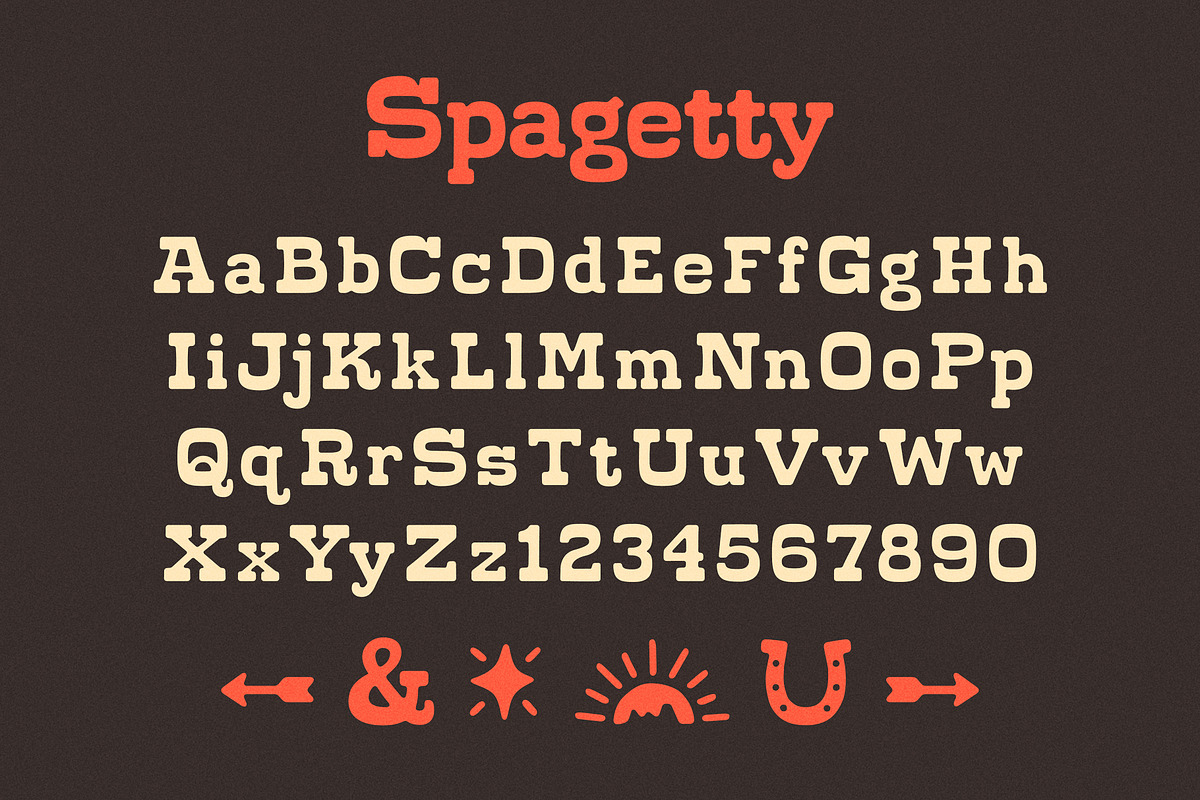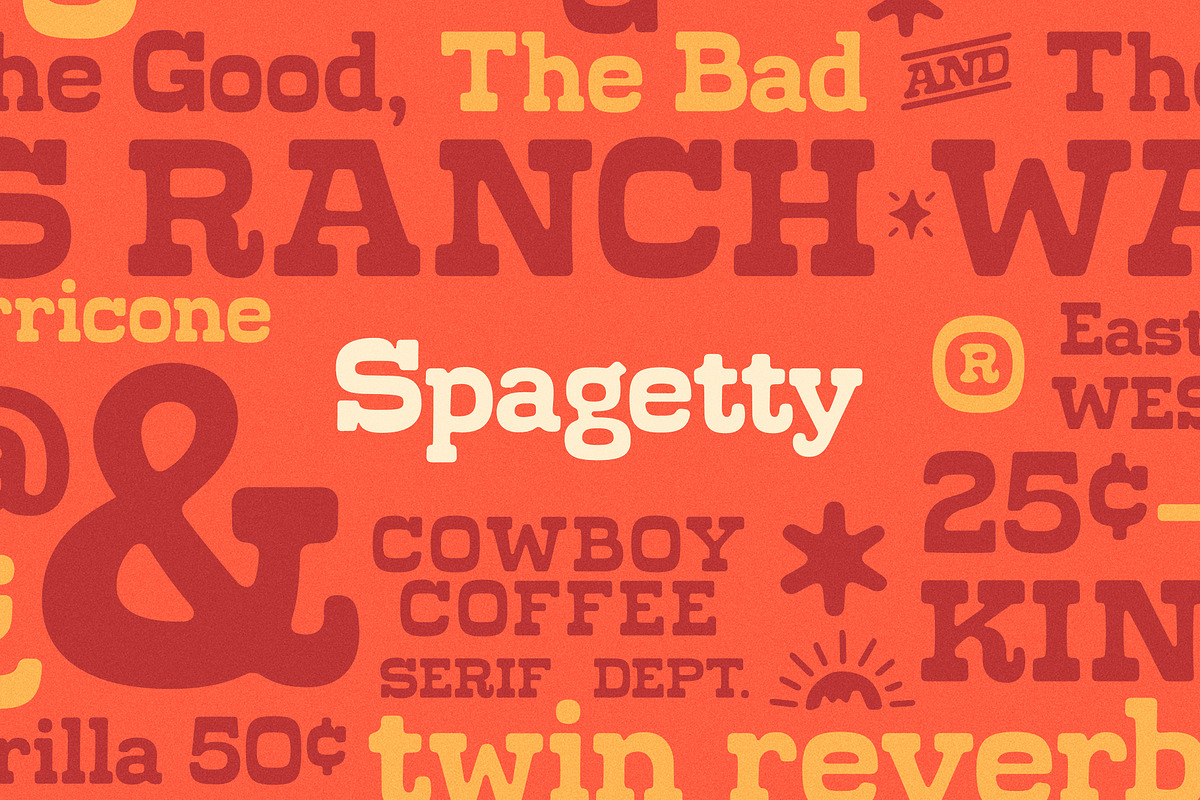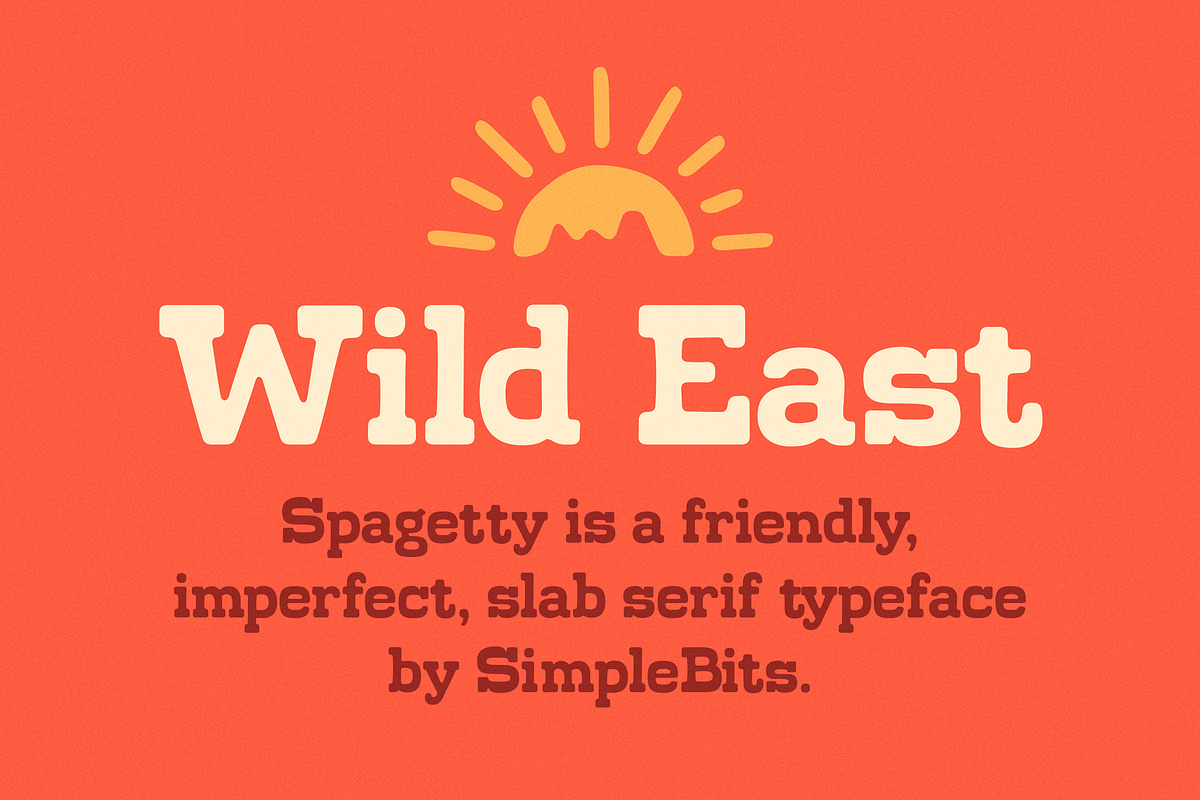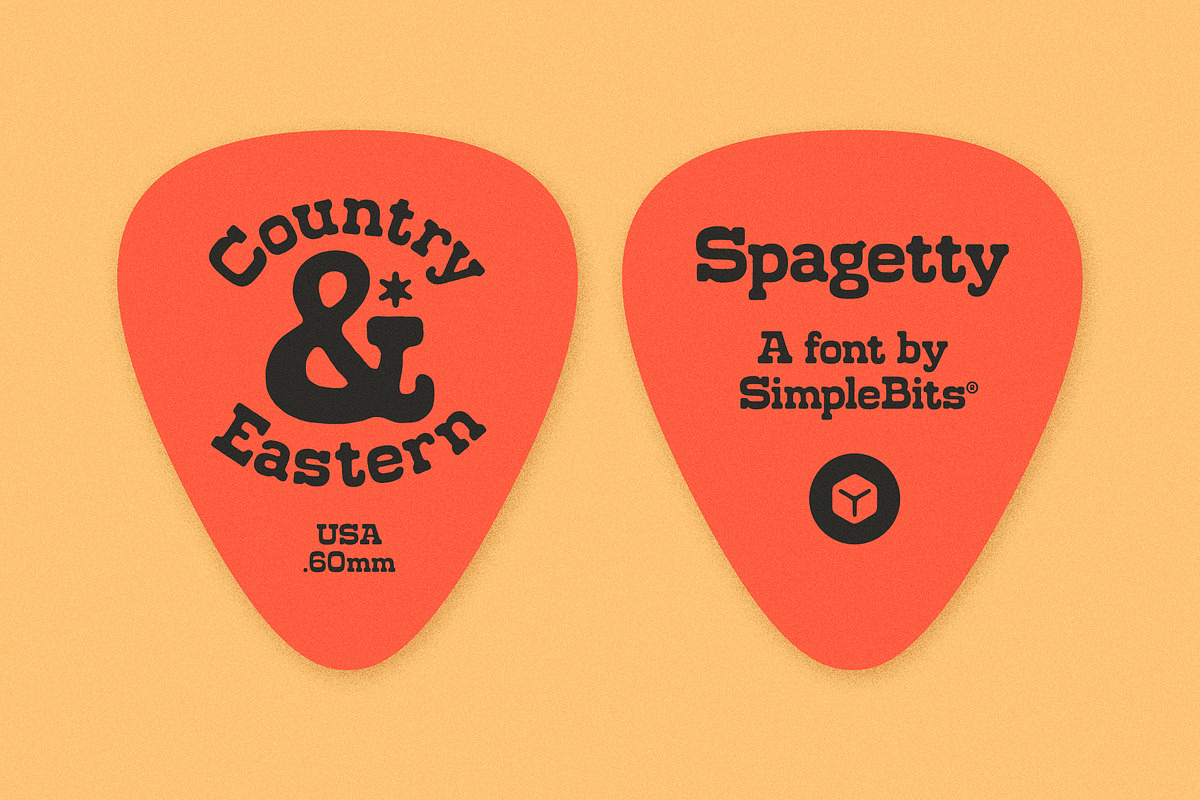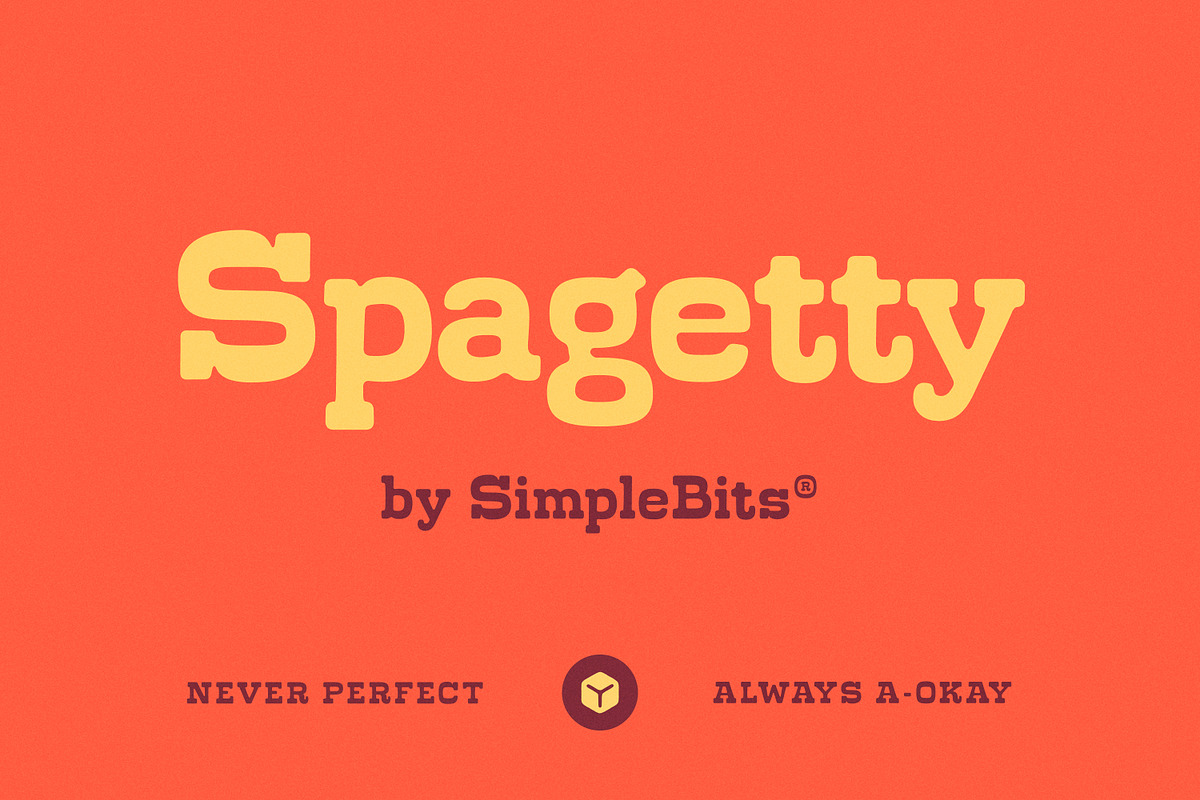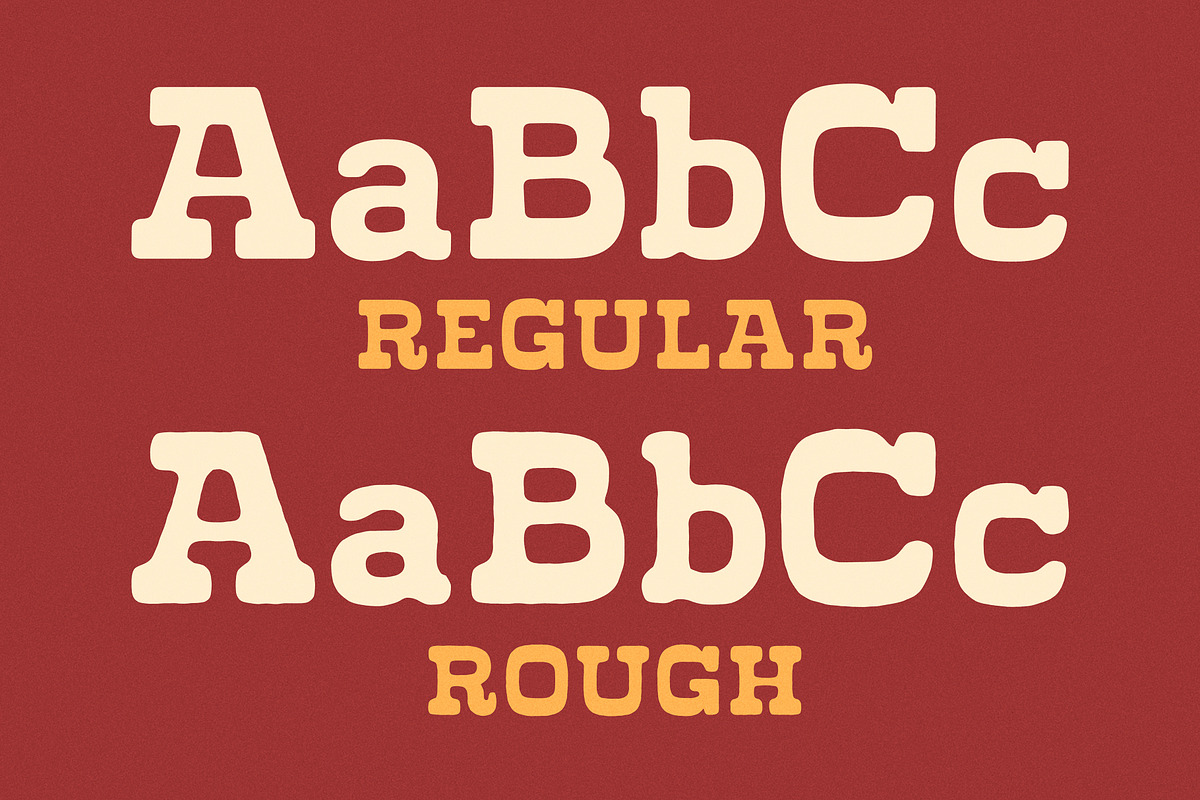
Spagetty — A friendly slab serif
Spagetty started with the urge to create the quintessential, slab serif, capital R—with its handlebar mustache curly leg. I've always loved how much personality lives in that one character. The rest filled in, inspired by the Wild East West, Ennio Morricone's spring-reverb-laden Spaghetti Western scores, sasparilla, swinging saloon doors, and 80s cartoons.
Spagetty includes two styles: Regular and Rough (subtly worn, great at large sizes). Upper and lowercase, numerals, punctuation, diacritics with expanded language support, as well as some imperfect alternate glyphs (Western sunset, star, lucky horseshoe, etc.). Yee-haw.